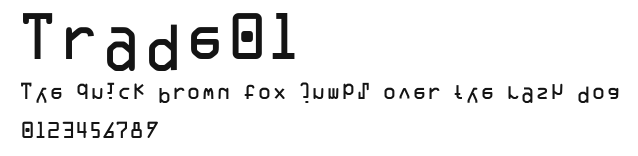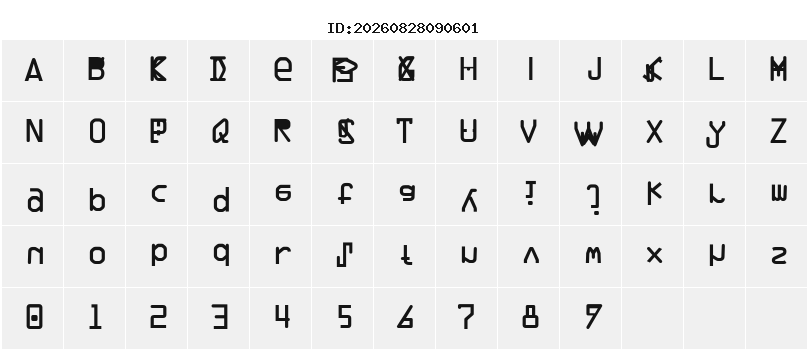
Trade01 Preview
• Font Name: Trade01
• Full Font Name: Trade01-Regular
• PostScript Name: Trade01-Regular
About Trade01.ttf
Trade01.ttf is a modern, elegant sans-serif font designed for ultimate readability and visual harmony. Perfect for branding, headlines, web design, and print materials.